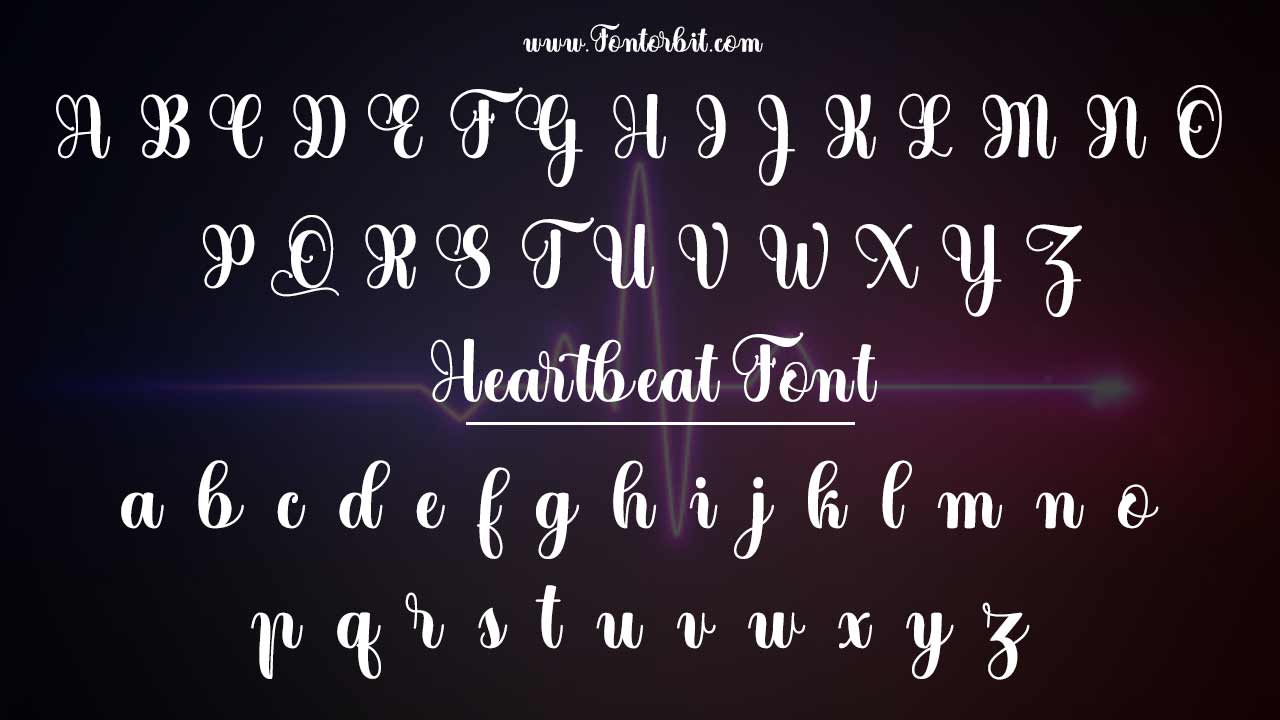
Typography is a key element in design, shaping how messages are perceived. One font that stands out is Heartbeat Font, designed by Creative Lab. This elegant handwritten script is widely loved for its rhythmic strokes and expressive feel, making it ideal for creative projects.
What Makes Heartbeat Font Special?
As resting heart rate differs from person to person, the heartbeat Font replicates the heart’s natural heart rhythm and flowing electrical impulses. Excellent for branding and decorative text, this handwritten script font allows a natural flow.
Looking at it, you nearly feel the motion, as if someone were smoothly, flowingly writing it in real time. Perfect for projects requiring a little human connection, this type of typeface gives designs warmth and character.
A well-designed script font has certain naturally soothing qualities. It makes us think of handwritten letters, private notes, and heartfelt sentiments. Heartbeat Font brings back the appeal of genuineness in a world full with exacting digital fonts. Whether applied in personal endeavors or brands, it establishes a link appealing to viewers.
Heartbeat Font Family Names
- Heartbeat Regular
- Heartbeat Swash (if applicable)
Why Designers Choose Heartbeat Font
Designers have an emotional connection with fonts. Every stroke, every curve, tells a story. Heartbeat Font stands out for many reasons:
- Elegant & Handwritten – It captures the organic, natural movement of handwriting.
- Versatile – Works well for branding, invitations, and social media.
- Readable – Unlike some script fonts, Heartbeat maintains clarity even in small sizes.
- Great Symbolism – It connects with themes of rhythm, heartbeats, and life.
- Modern & Decorative – Perfect for romantic and wellness-related designs.
Imagine designing a wedding invitation. You want something that feels personal, like it was handwritten with love. Heartbeat Font does exactly that. It adds that touch of intimacy, making every word feel like a heartfelt note.
On the other hand, imagine working on a campaign for heart health awareness. A standard font might make the message look clinical or impersonal. But using Heartbeat Font? It adds warmth and emotion, making people feel connected to the cause.
Comparison Of Heartbeat Font With Similar Fonts
| Feature | Heartbeat Font | Similar Fonts (e.g., Gerigi, QINDARS) |
| Style | Handwritten, Script | Handwritten, Script |
| Readability | High | Medium |
| Decorative Elements | Swashes & Flow | Varies |
| Best Use Cases | Branding, Health Campaigns | Invitations, Social Media |
Other handwritten fonts might have similar styles, but Heartbeat Font sets itself apart with its smooth strokes and natural rhythm. Unlike overly decorative fonts that sacrifice readability, this one finds a balance between beauty and function.
Where To Use Heartbeat Font
The beauty of this font is its versatility. Here are some of the best places to use it:
- Business Cards – Adds personality and warmth, making an immediate impression.
- Wedding Invitations – Perfect for romantic and elegant themes.
- Health Awareness Materials – Symbolizes heart health, beats, and rhythm.
- Social Media Graphics – Eye-catching script for Instagram & Pinterest posts.
- Posters & Flyers – Enhances promotional materials with elegance and charm.
- T-shirt Designs – Works well for creative fashion projects.
- Book Covers – Adds an artistic and personalized touch to covers.
- Greeting Cards – Makes messages feel heartfelt and personal.
- Logos for Wellness Brands – Creates an emotional connection with the audience.
- Restaurant Menus – Especially for cafes or bakeries with a cozy, handcrafted vibe.
Think of a wellness brand that promotes mindfulness and self-care. Using Heartbeat Font in their branding can create a sense of calm and connection. It conveys emotion without needing extra embellishments.
How To Use Heartbeat Font Effectively
Just like any stylish piece of clothing, fonts need to be used the right way to shine. Here are a few tips to make the most of Heartbeat Font:
- Pair With A Clean Sans-Serif Font – This creates balance and avoids visual clutter.
- Use Sparingly For Headlines And Branding – Script fonts work best for accents, not body text.
- Adjust Spacing And Kerning – This maintains the natural handwritten feel.
- Utilize The Character Map – Access stylistic alternates for extra flair.
- Choose The Right Color Combinations – Pastel tones and soft gradients enhance its elegance.
- Use It For Seasonal Promotions – Especially fitting for Valentine’s Day or wellness campaigns.
If you’re designing a logo, try combining Heartbeat Font with a minimalist sans-serif like Montserrat. The contrast between the two styles creates a modern yet artistic look.
3.What Type Of Projects Is It Best For?
It’s great for branding, health campaigns, wedding invitations, and social media.
5.Can It Be Used For Medical Awareness Materials?
Yes! It’s perfect for health-related themes due to its heart and rhythm symbolism.
6.What Fonts Pair Well With Heartbeat Font?
Sans-serif fonts like Montserrat or geometric fonts create a great contrast.